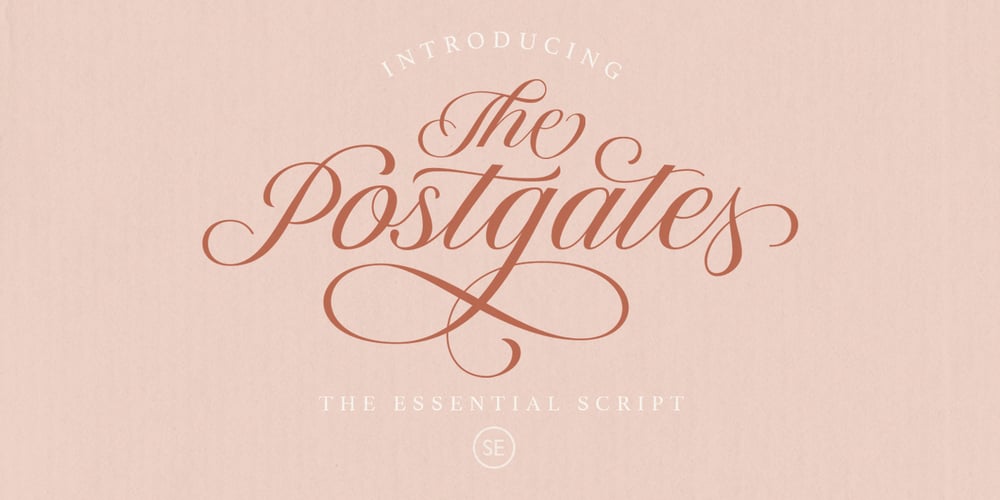
The Postgates Font Family was designed by Sarid Ezra and published by Sarid Ezra. The Postgates contains 1 styles and family package options. Introducing, The Postgates, An Essential Font!The Postgates is a classic script font that contain a lot stylistic alternate, swash, etc to create your own customized lettering. You can feel the elegant and luxury from this font. It’s time to try a new classic script. Use this font for your fashion brand now! Also The Postgates support multi language. This font is also support PUA.Features Uppercase & Lowercase Number & Symbol Multi language Up to 11 Alternates for each characters PUA Encoded Don’t hesitate to send me an email at saridezra@gmail.comHappy Creating!